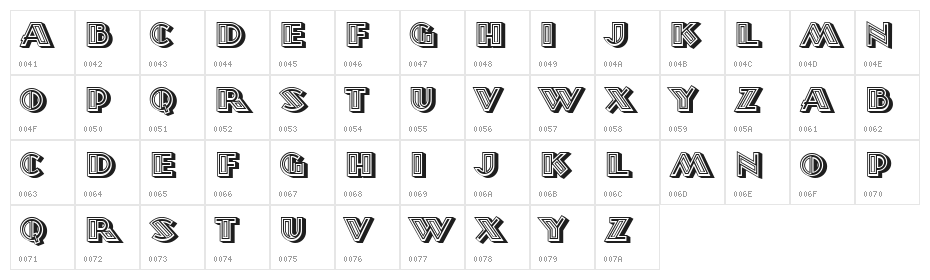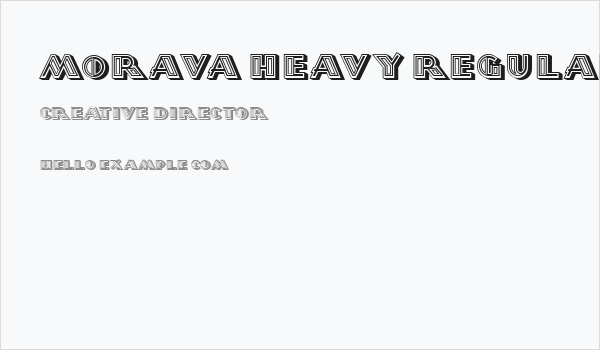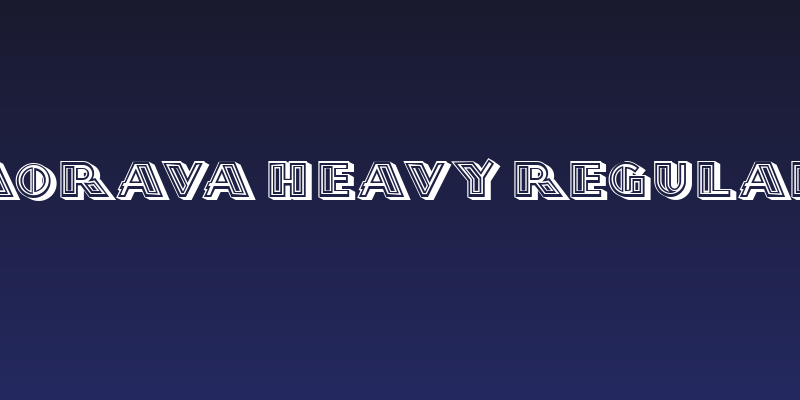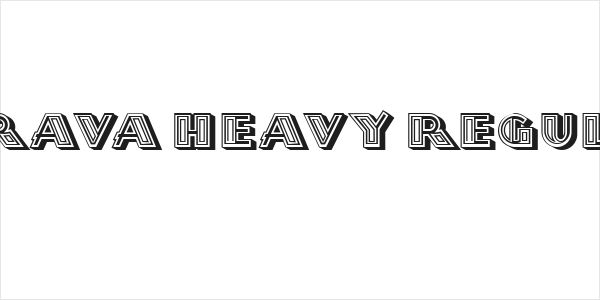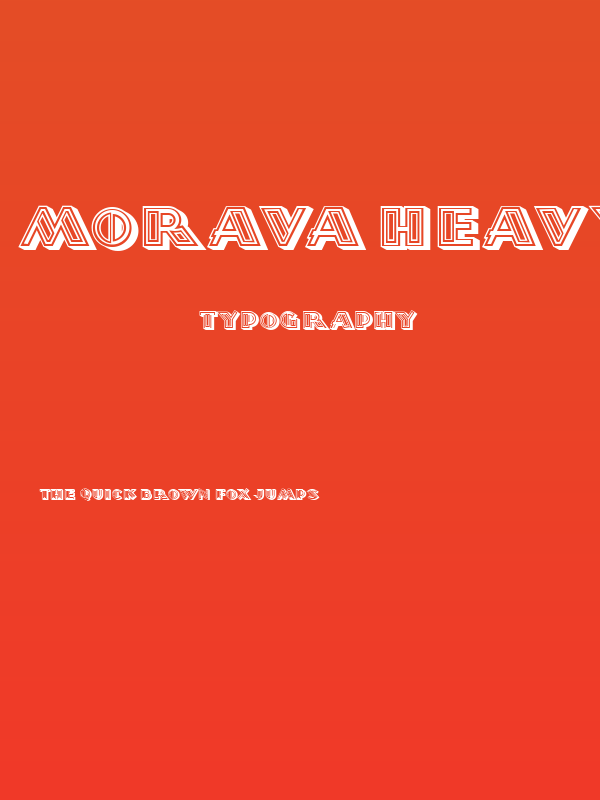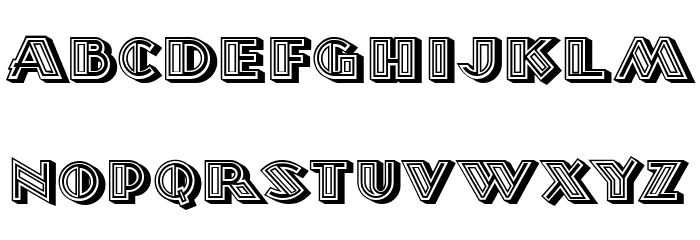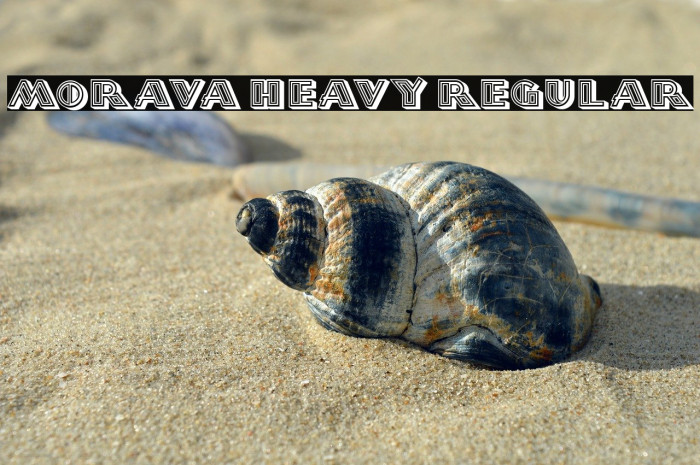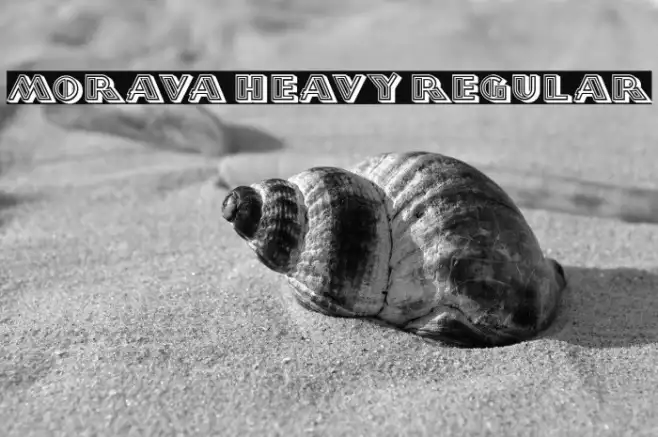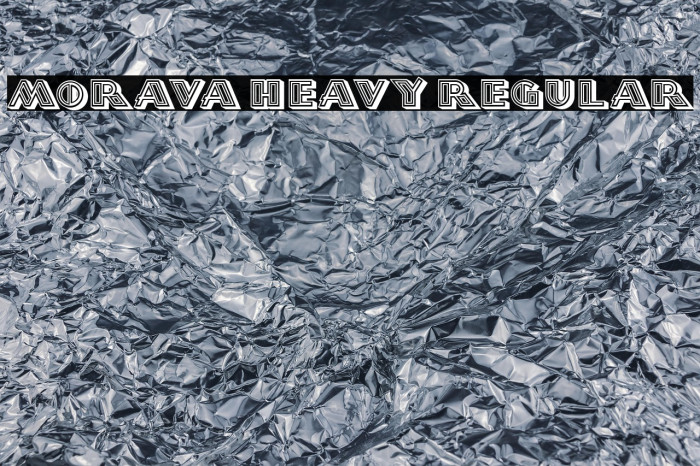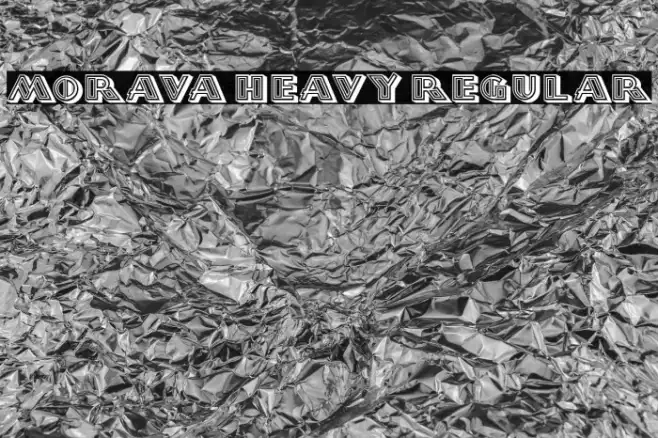
Morava Heavy Regular Font
Morava Heavy Regular Description
This font features a bold, geometric design with a distinct three-dimensional effect. The characters are constructed with multiple layers of lines, creating a sense of depth and complexity. The uppercase letters are particularly striking, with sharp angles and a strong presence. The overall look is modern and dynamic, making it suitable for eye-catching designs. The font's intricate detailing and bold structure make it ideal for use in headlines or logos where a strong visual impact is desired.
| Proposed Projects | Ideal for branding, poster designs, and any project requiring a bold, modern aesthetic. |